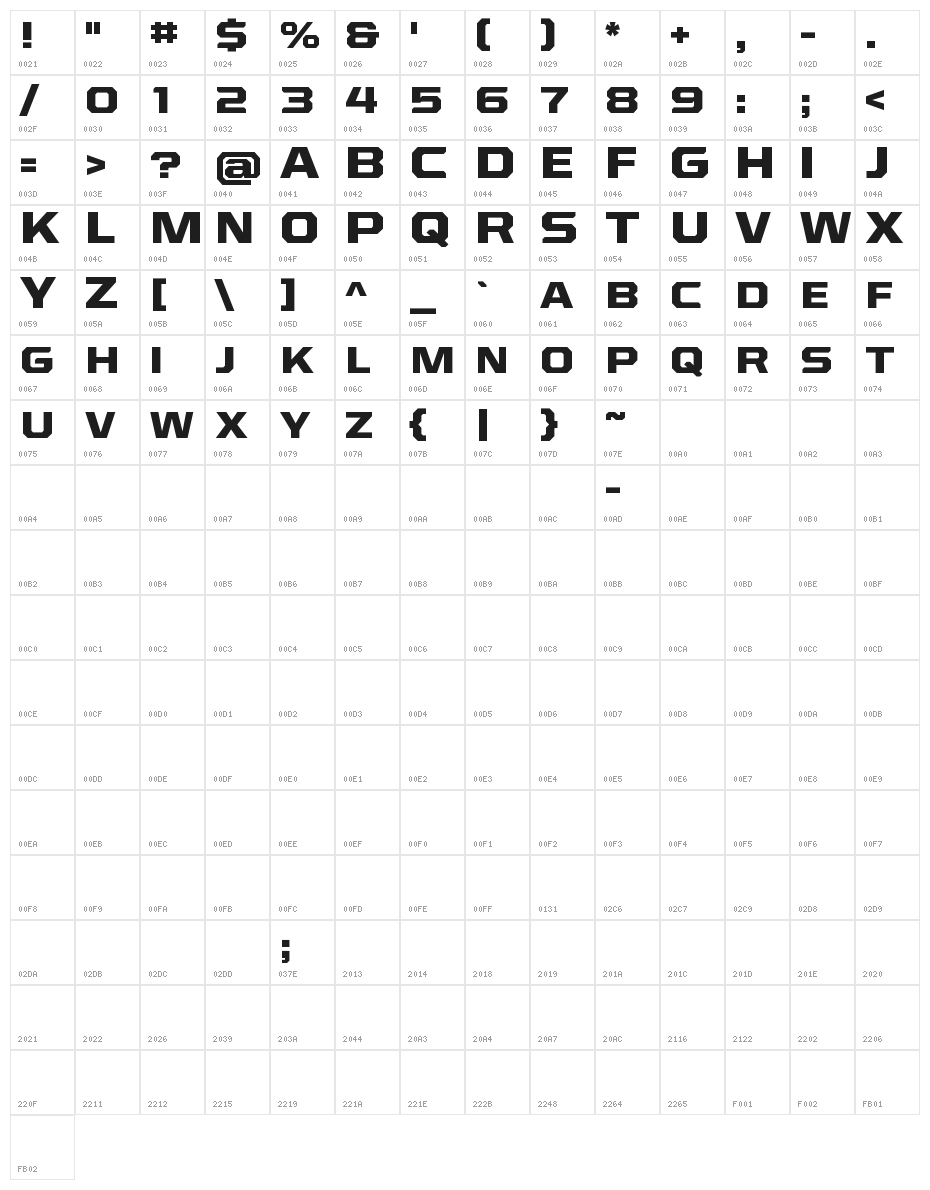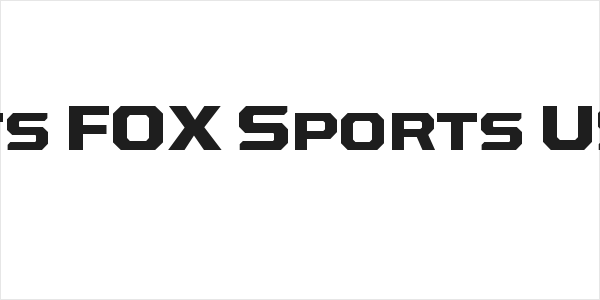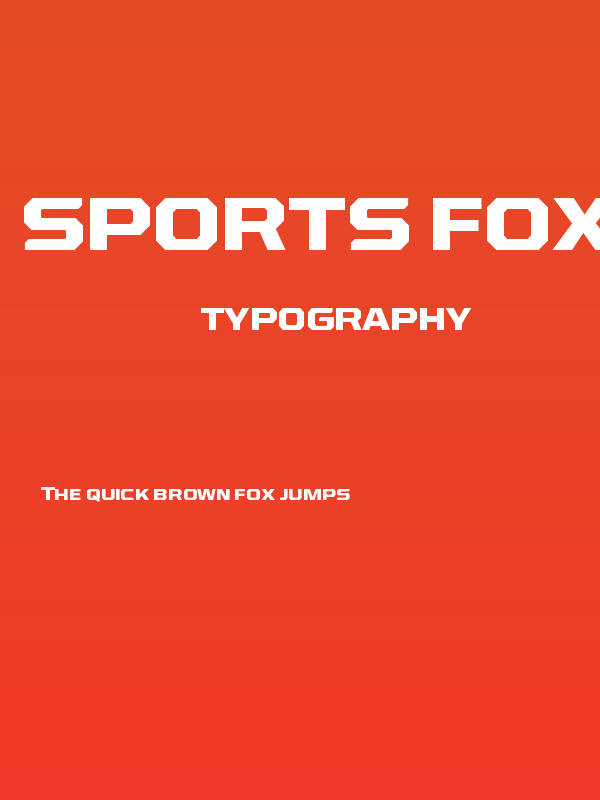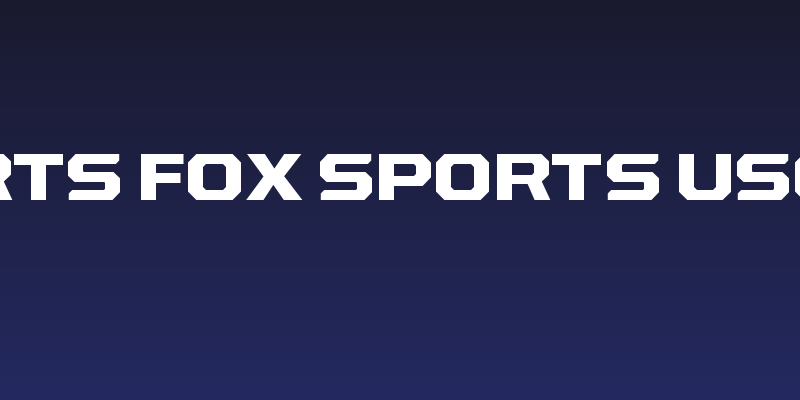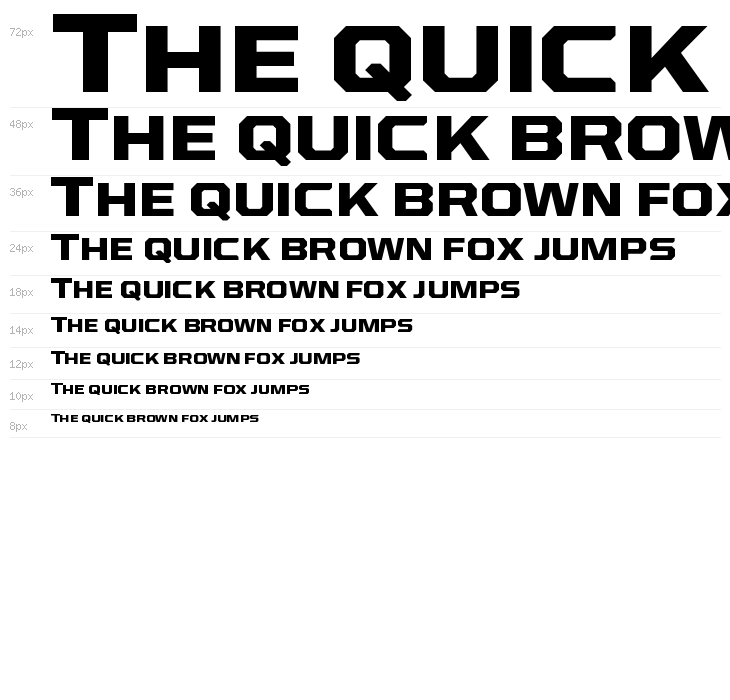
Sports FOX Sports UScore Font
Sports FOX Sports UScore Description
This font features a bold, geometric design with strong, angular lines and a modern aesthetic. The characters are uniformly wide, creating a sense of stability and strength. The uppercase letters are particularly striking, with a blocky appearance that commands attention. The numerals and special characters maintain this bold style, ensuring consistency across all text. The font's design is reminiscent of sports branding, making it ideal for dynamic and energetic applications. Its clean lines and lack of serifs contribute to a contemporary look, suitable for various digital and print media.